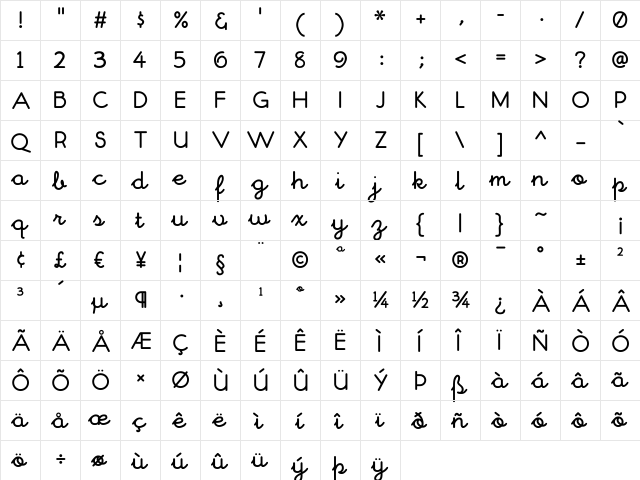
ChitownScript Regular
Design Context for ChitownScript Typeface
ChitownScript flows with the natural rhythm of handwritten lettering, making it ideal for designs that call for warmth and personal expression.
Font Pairing: Combine ChitownScript with a simple geometric sans for maximum contrast — the tension between flowing curves and clean structure is a classic typographic pairing.
Pro Tip: Pair ChitownScript with a clean sans-serif for supporting text. The contrast between fluid script and geometric structure creates an elegant typographic hierarchy.